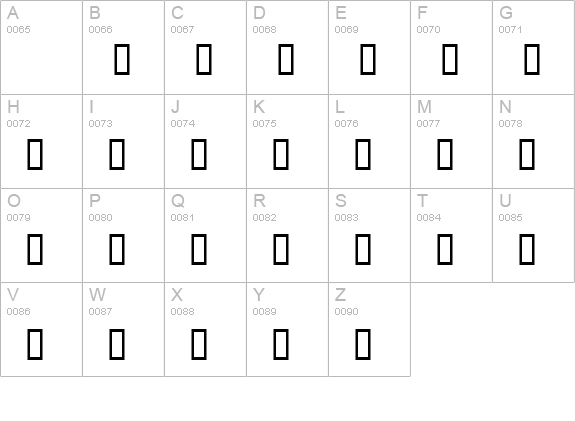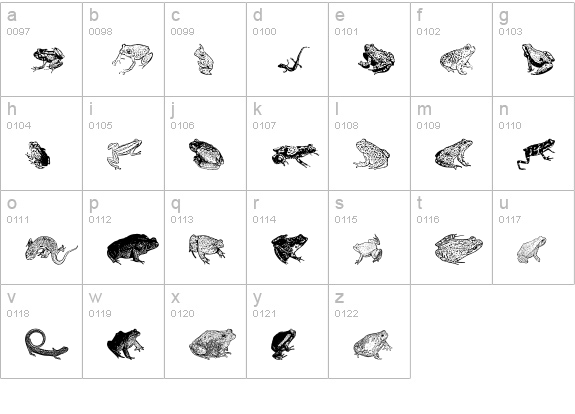
AmphibiPrint font is a playful and whimsical typeface that captures the essence of nature and creativity. With its unique blend of organic shapes and fluid lines, this font is perfect for adding a touch of fun and charm to your design projects. Whether you're creating invitations, posters, or branding materials, AmphibiPrint will bring a fresh and vibrant look to your work. The best part is that AmphibiPrint font is available for free download at FontsMarket.com. So you can easily access this delightful font and start using it in your projects right away. Don't miss out on the opportunity to add a touch of whimsy to your designs with AmphibiPrint font!